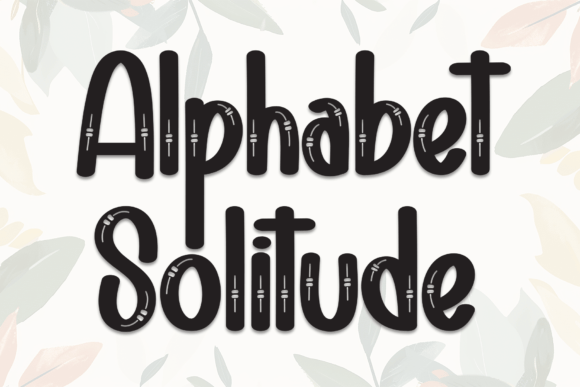
Introducing Alphabet Solitude Font: The Perfect Handwritten Font for Personal Touch
Are you looking for a font that can add a personal touch to your notes, invitations, or any other written content? Look no further than the Alphabet Solitude Font. This lovely handwritten font is designed to give your text a warm and friendly vibe, making it perfect for a wide range of applications.
What Makes Alphabet Solitude Font Special?
- Smooth and Flowing Letters: The Alphabet Solitude Font features smooth, flowing letters that give it a relaxed and friendly vibe. Each letter is carefully crafted to create a sense of fluidity and continuity, making it a joy to read.
- Handwritten with Love: This font is a true handwritten font, created with love and care to give it a personal touch. The imperfections and quirks of handwritten writing are preserved, making it feel more authentic and relatable.
- Perfect for Notes and Invitations: The Alphabet Solitude Font is ideal for notes, invitations, and any other type of written content that requires a personal touch. Whether you’re sending a birthday card or a wedding invitation, this font will make it feel more special and meaningful.
The Many Uses of Alphabet Solitude Font
The Alphabet Solitude Font is a versatile font that can be used in a wide range of applications. Here are some ideas to get you started:
- Wedding Invitations: Use the Alphabet Solitude Font to create beautiful and personalized wedding invitations that will set the tone for your special day.
- Birthday Cards: Add a personal touch to your birthday cards with this lovely handwritten font. You can use it to create custom cards for friends and family.
- Blogging and Social Media: Use the Alphabet Solitude Font to add a personal touch to your blog posts and social media updates. It’s a great way to connect with your audience and make your content more relatable.
- Branding and Packaging: This font can also be used for branding and packaging purposes. Use it to create custom labels, packaging, and marketing materials that reflect your brand’s personality.
The Benefits of Using Alphabet Solitude Font
There are many benefits to using the Alphabet Solitude Font. Here are some of the most significant advantages:
- Unique and Personalized: This font is unique and personalized, making it perfect for applications where you want to stand out from the crowd.
- Easy to Read: The Alphabet Solitude Font is easy to read, even at small sizes. This makes it perfect for body text and other applications where readability is important.
- Flexible: This font is highly flexible and can be used in a wide range of applications, from digital media to print materials.
- High-Quality: The Alphabet Solitude Font is a high-quality font that is designed to deliver exceptional results. It’s perfect for professional applications where quality matters.
Tips for Using Alphabet Solitude Font
Here are some tips for using the Alphabet Solitude Font:
- Use it for Headings and Titles: This font is perfect for headings and titles, where you want to make a statement and add a personal touch.
- Pair it with Other Fonts: The Alphabet Solitude Font can be paired with other fonts to create a unique and interesting combination. Try pairing it with a sans-serif font for a modern look.
- Experiment with Colors: This font looks great in a variety of colors, so don’t be afraid to experiment and find the perfect color for your application.
- Use it for Digital and Print Media: The Alphabet Solitude Font can be used for both digital and print media, making it a versatile font that can be used across different platforms.
The Alphabet Solitude Font is a lovely handwritten font that looks warm and personal. Its smooth, flowing letters give it a relaxed and friendly vibe, making it perfect for notes, invitations, or anything that needs a personal touch. With its many uses, benefits, and flexibility, this font is a great addition to any designer’s toolkit.
- What is the Alphabet Solitude Font?: The Alphabet Solitude Font is a handwritten font designed to give your text a warm and friendly vibe.